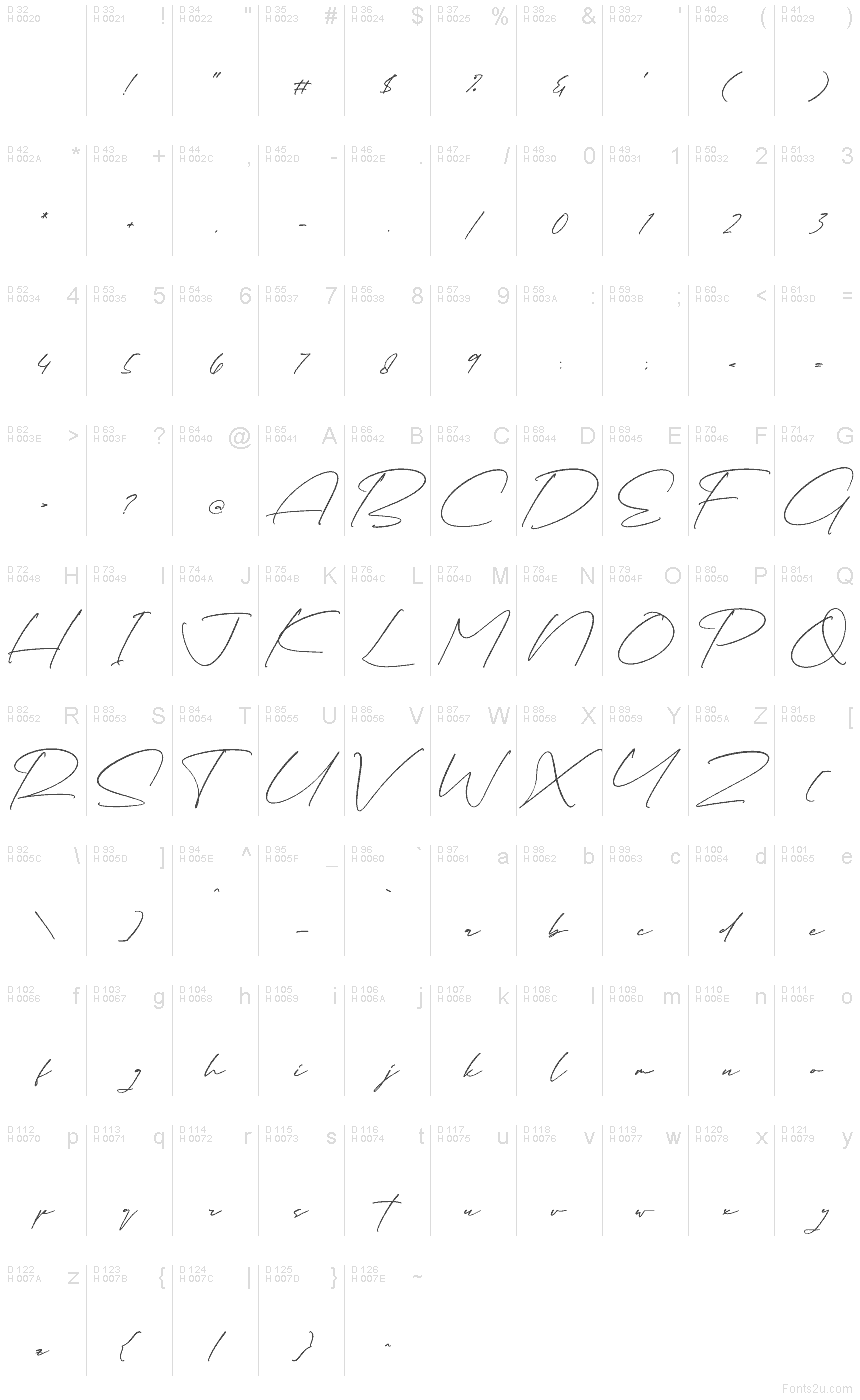
Bernathia Andalissa
Bernathia Andalissa font by Storytype Studio is a light handwritten free font with an elegant, contemporary script style. Its sophisticated signature look and chic characters make it a timeless work that will suit your delicate design projects.
The versatile download can be naturally introduced in various printed & digital use cases: identity & branding designs; tattoos; logos; menu covers & posters for coffee shops or restaurants; business cards; magazine covers & layouts; typographic poster designs for events related to different domains such as fashion, literature, and music.